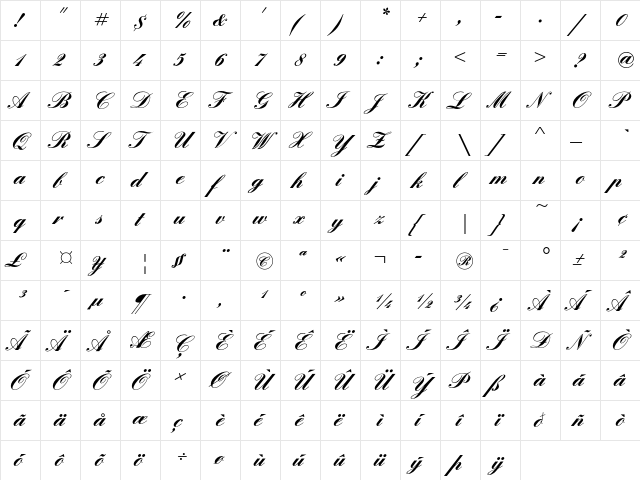
English Script LT Std Regular Font Preview
| Foundry | Linotype GmbH |
| Designer | Linotype Design Studio |
Design Context for English Script LT Std Typeface
English Script LT Std brings a calligraphic fluidity to the page — its connecting strokes and expressive curves give it an unmistakably human quality. Its slender proportions lend an understated elegance to any composition.
Font Pairing: Combine English Script LT Std with a simple geometric sans for maximum contrast — the tension between flowing curves and clean structure is a classic typographic pairing.
Pro Tip: Pair English Script LT Std with a clean sans-serif for supporting text. The contrast between fluid script and geometric structure creates an elegant typographic hierarchy.